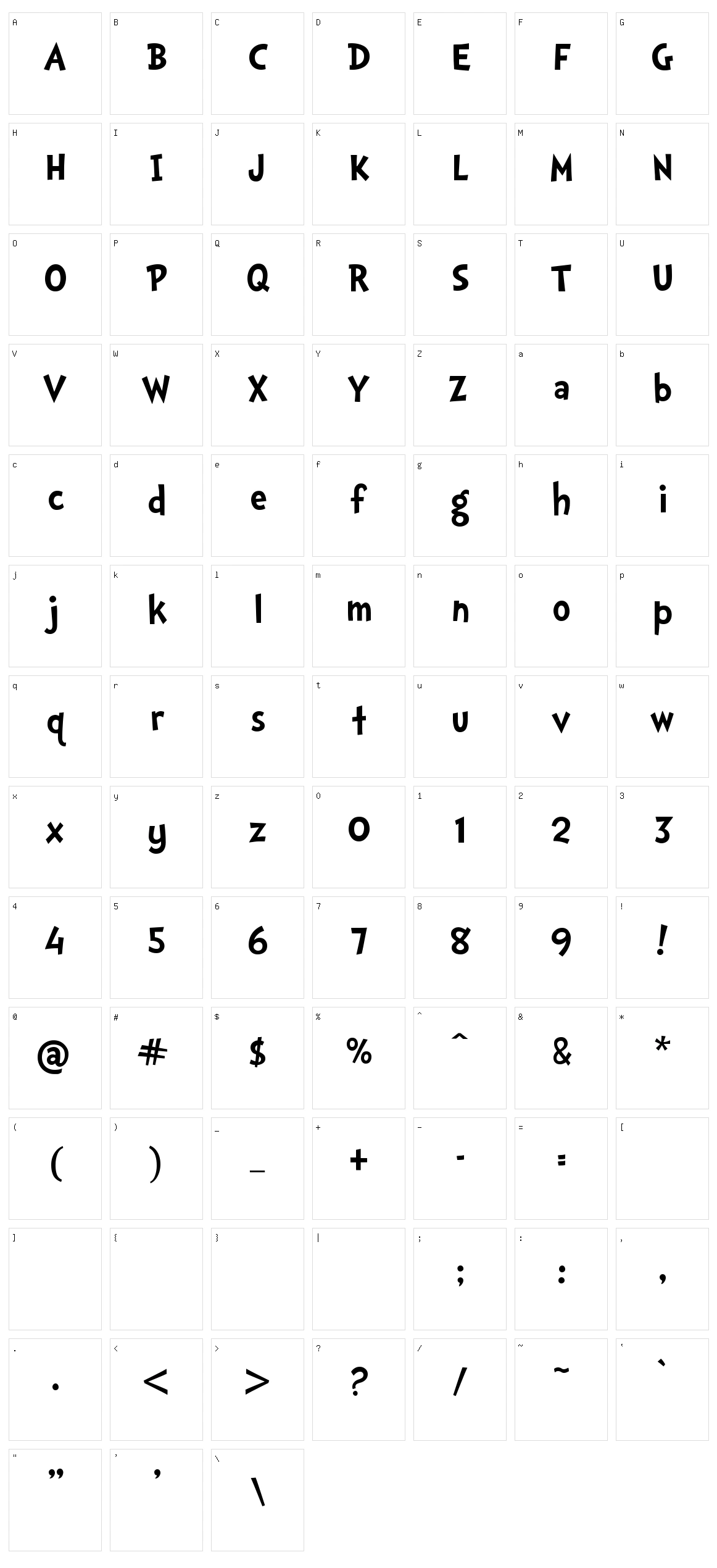
The free font Doctor Soos is carefully designed by Sean Trowbridge, showcasing a thoughtful balance of creativity and usability and falls under the Cartoon font style. When you download the ZIP file, it contains only 37.04 KB of font files, making it lightweight and quick to download. Please review the license details below to understand permitted usage and distribution rights. If license information is not available, we recommend using this font for personal projects only or contacting the author directly for commercial usage permissions.